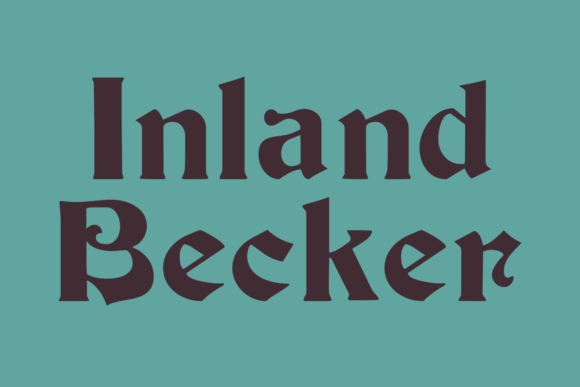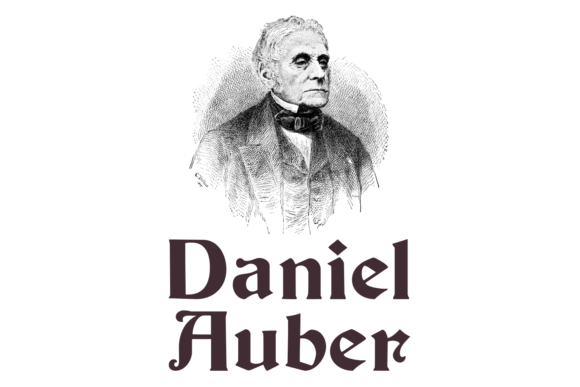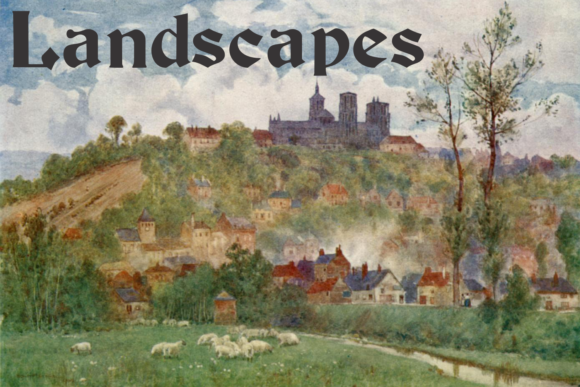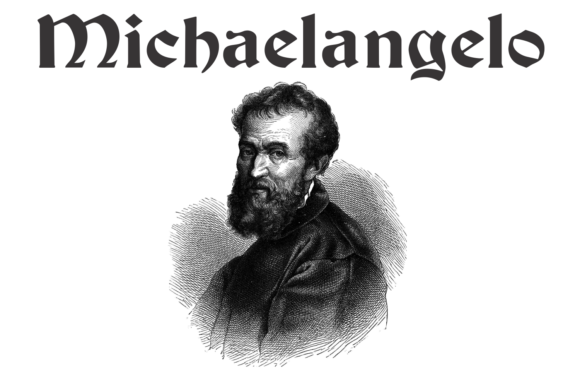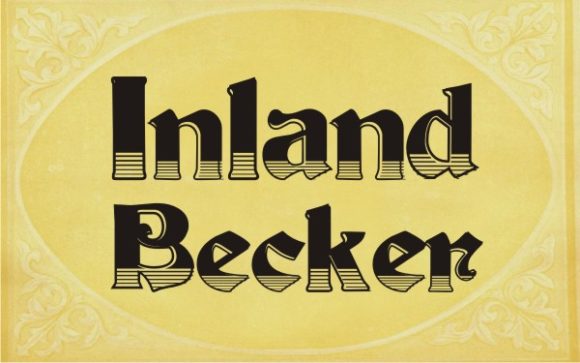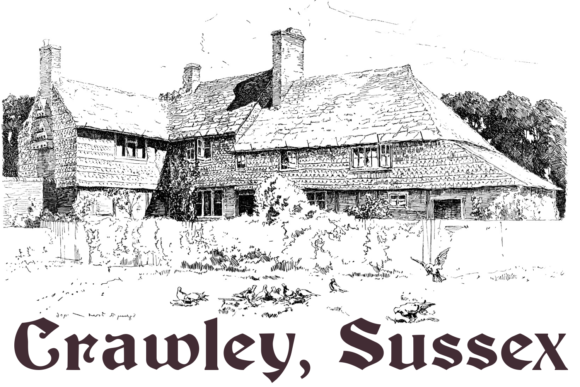
Introduction to Inland Becker Family Font
The Inland Becker Family includes four classical display fonts.
All includes styles have a striking, yet unique look with a perfect readability .
Key Features of Inland Becker Family Font